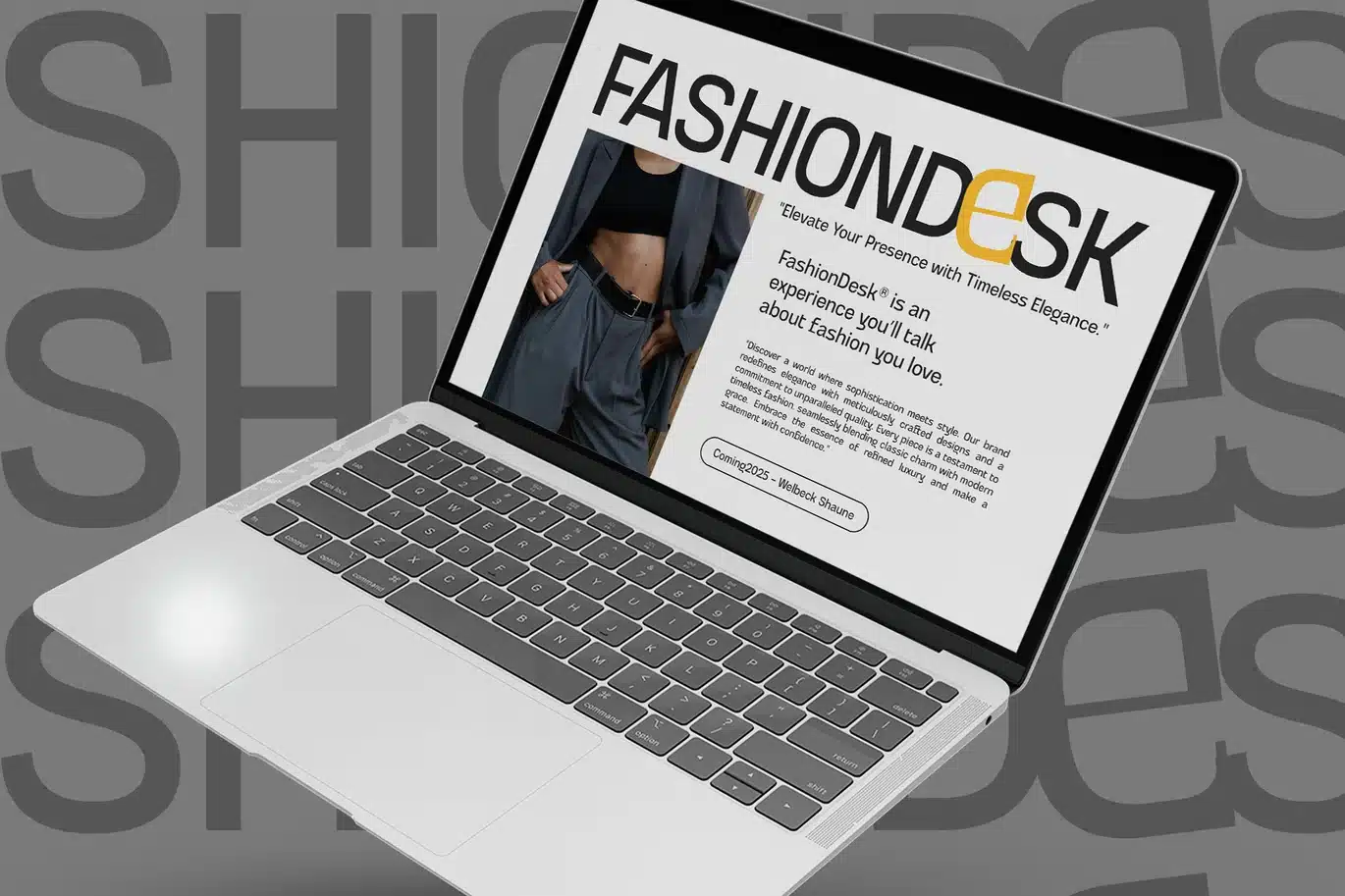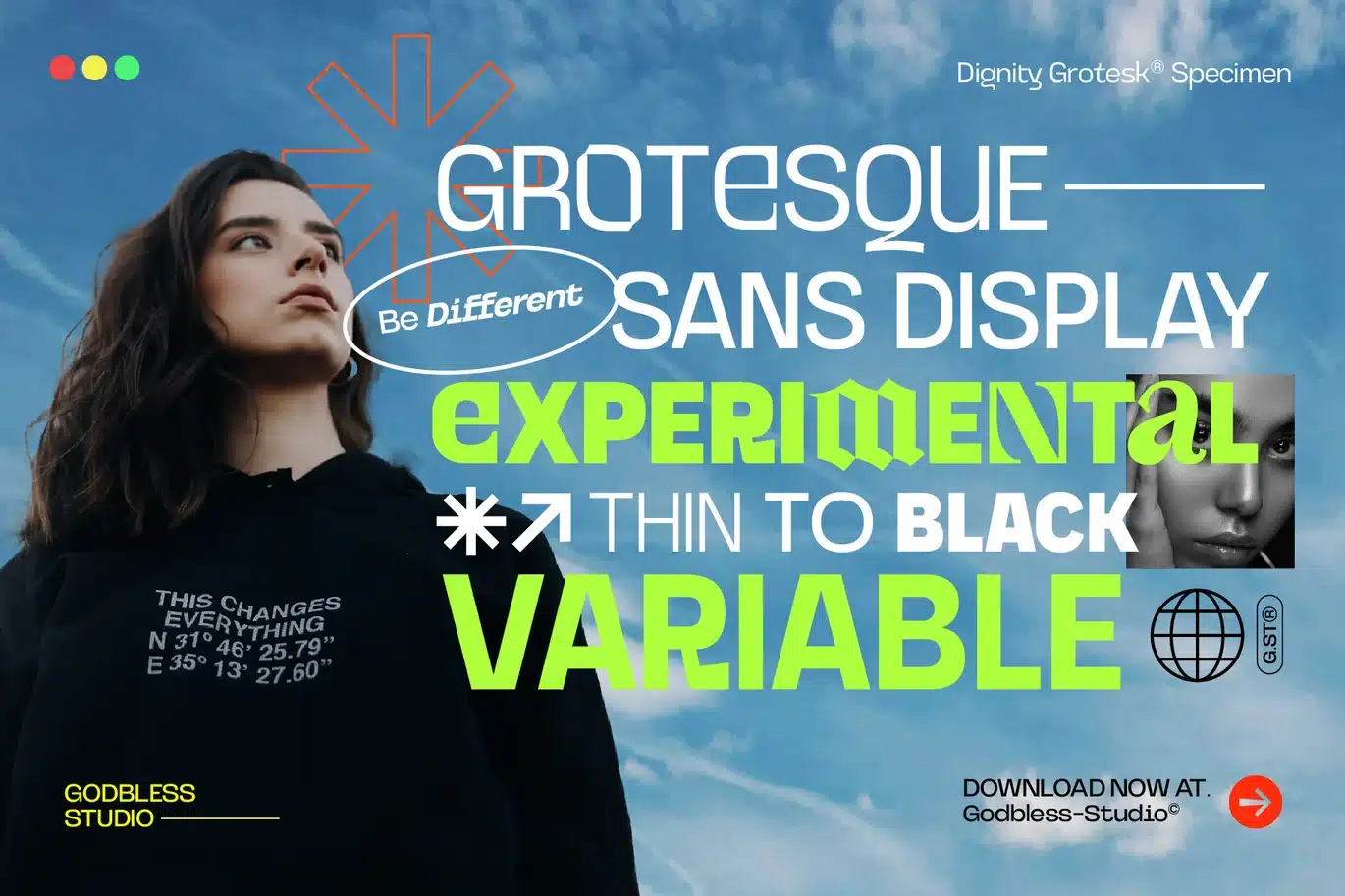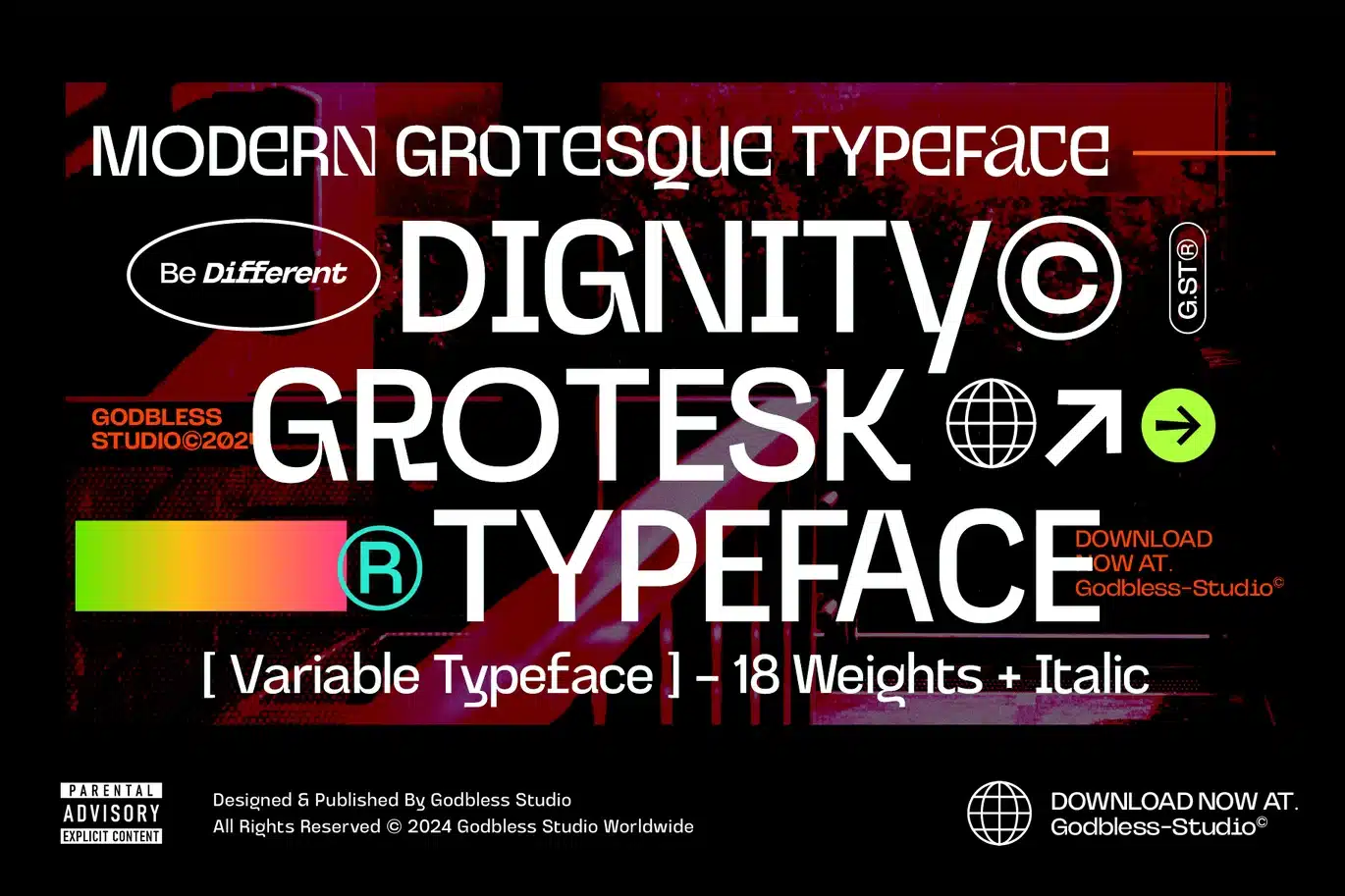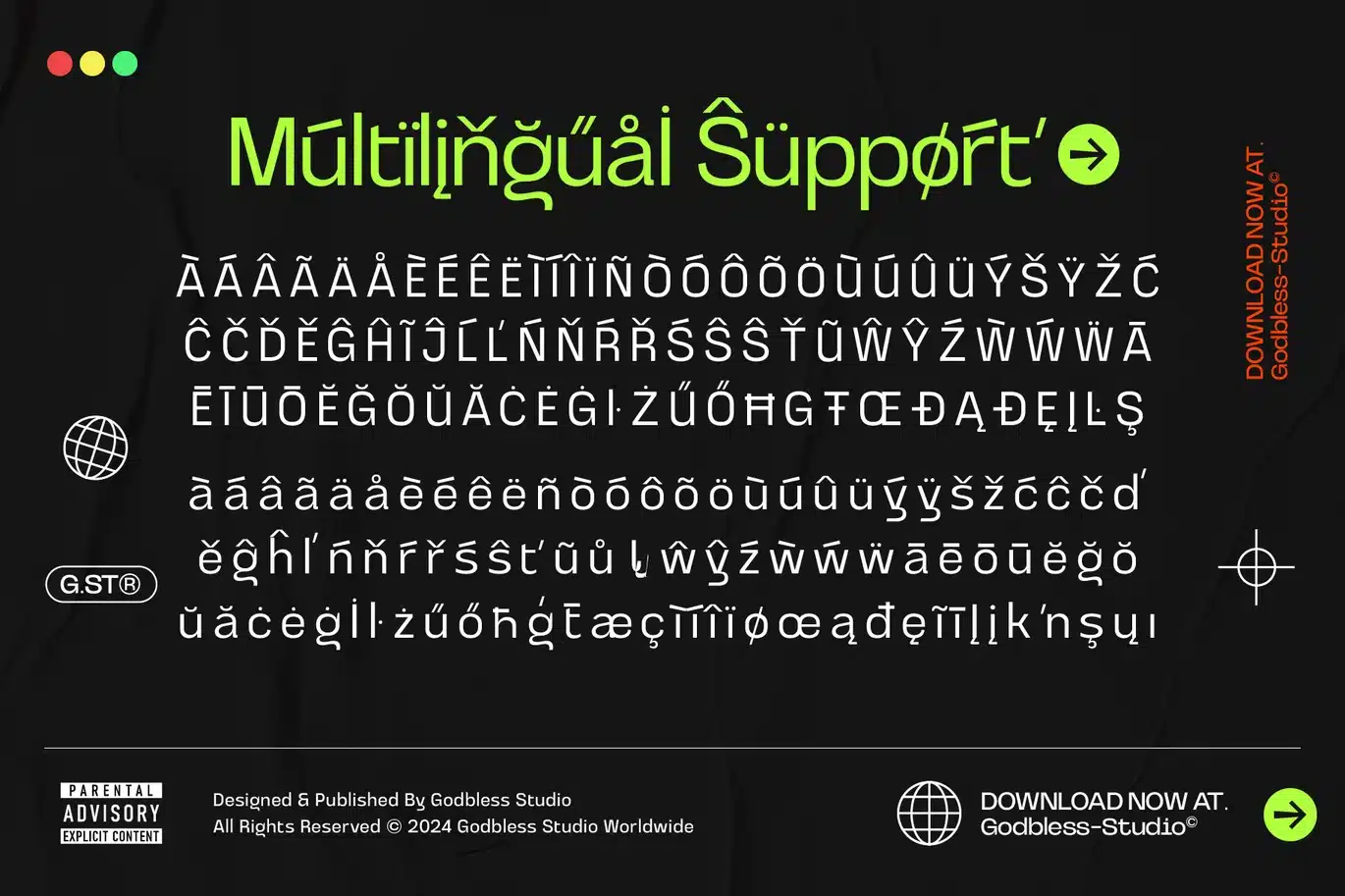
Dignity Grotesk Salt Font
Introducing "Dignity Grotesk" – The Ultimate Font for All Your Design Needs!
Elevate your design projects with Dignity Grotesk, a stunning and unique font that blends sophistication with versatility. Crafted to make an impact, this font is perfect for a wide range of applications, from eye-catching branding to elegant magazine layouts and beyond.
Why Choose Dignity Grotesk?
• Distinctive Character: Dignity Grotesk features a refined and stylish design with smooth lines and dynamic shapes. Its modern yet timeless appearance makes it ideal for creating memorable and professional visual identities.
• Versatile Application: Whether you're working on branding, logo creation, magazine layouts, posters, book covers, or sublimation projects, Dignity Grotesk adapts seamlessly to all these contexts. Its flexibility ensures it fits perfectly into any design scheme.
• User-Friendly Design: Designed for ease of use, Dignity Grotesk offers various styles and weights, allowing you to select the perfect option for every project. Its intuitive design process enhances your overall experience.
• Enhance Your Designs: With Dignity Grotesk, every project exudes professionalism and elegance. This font is designed to strengthen your visual message and deliver impressive results.